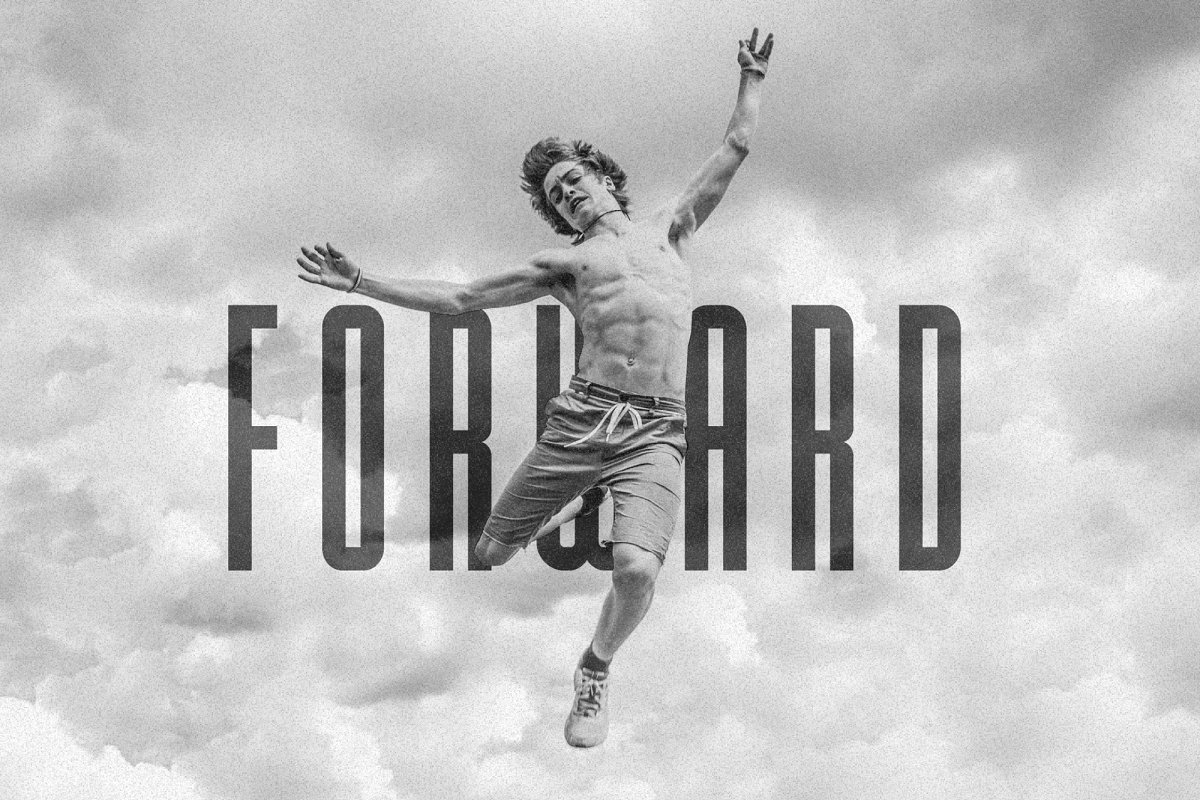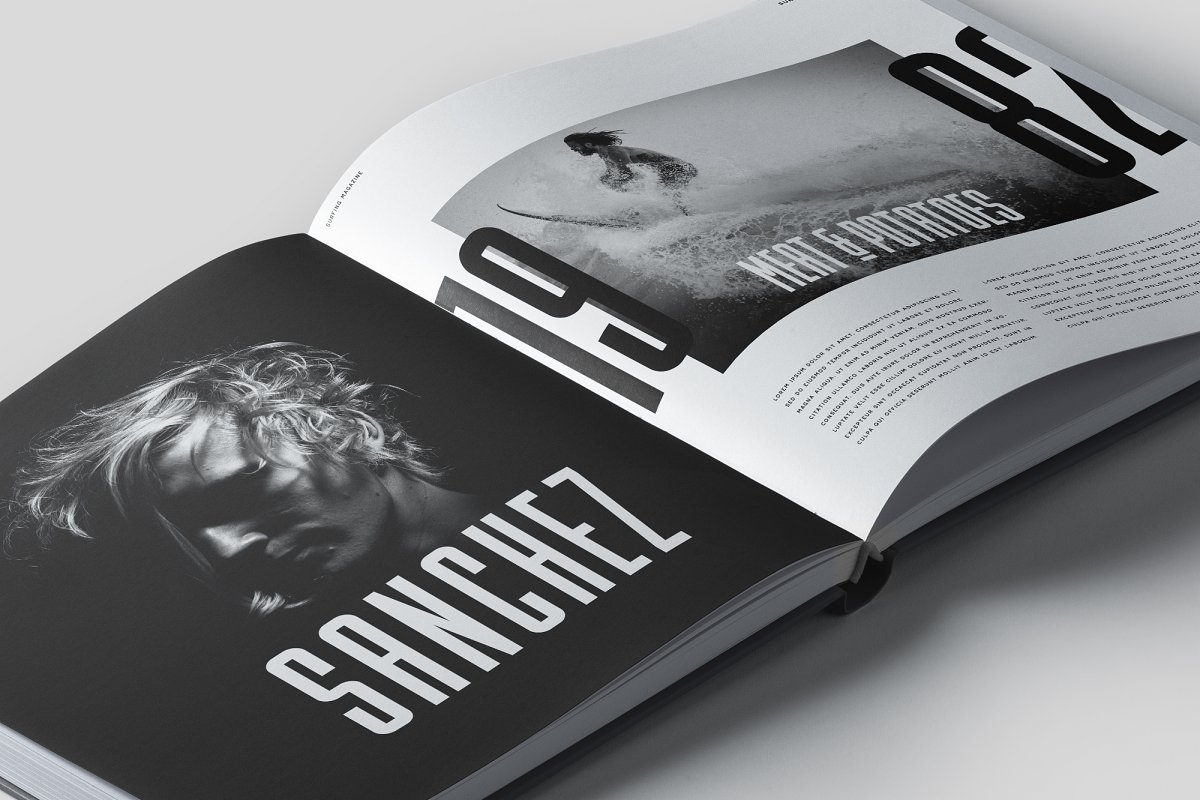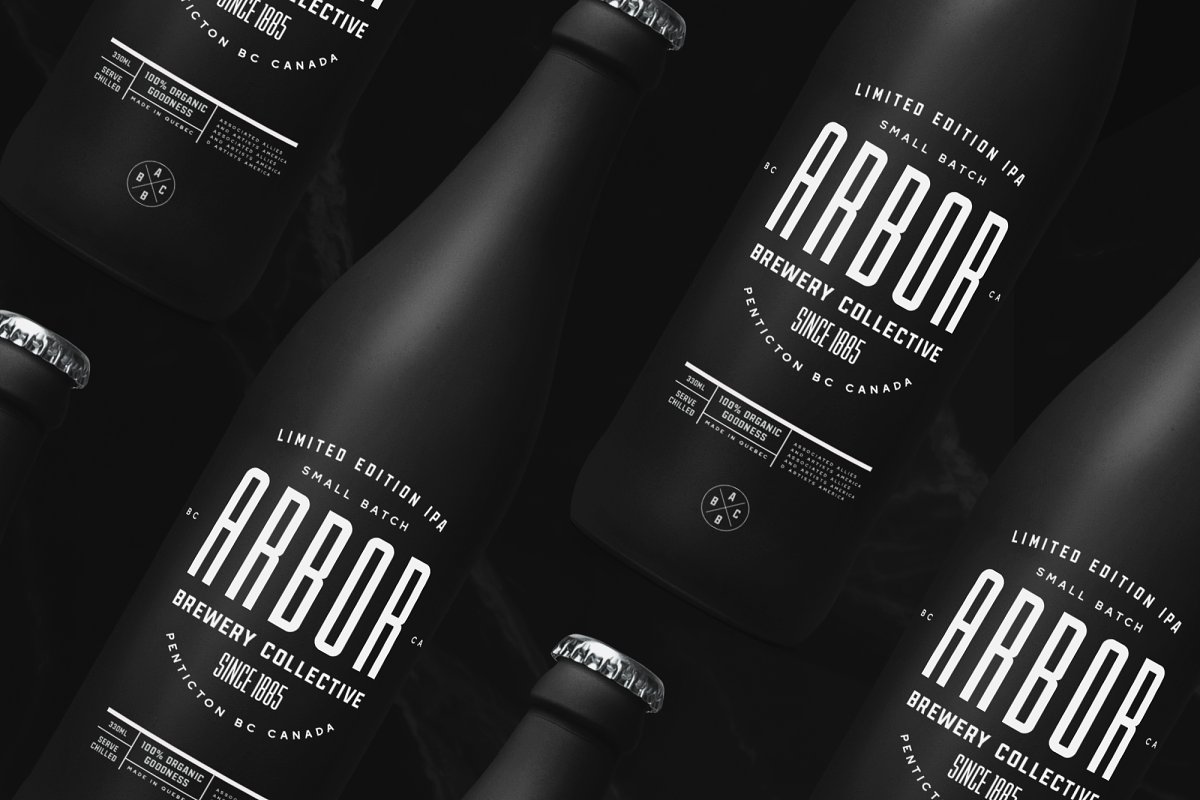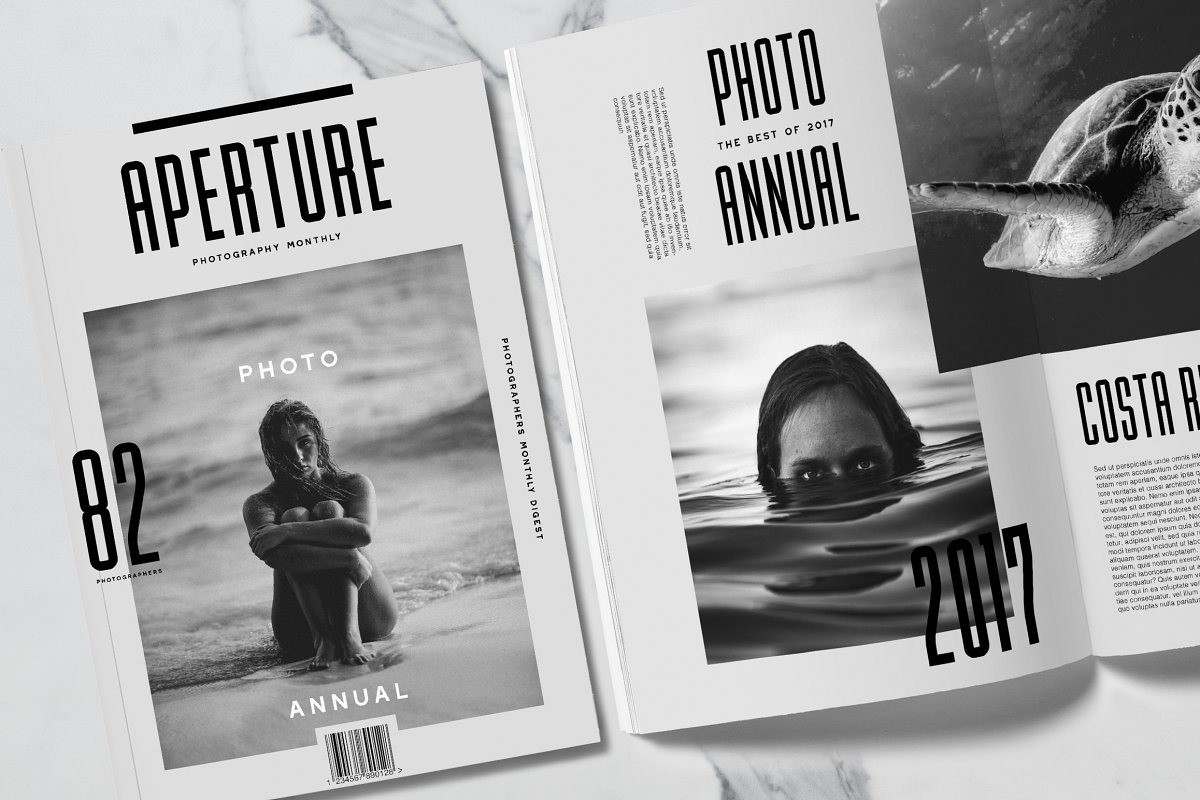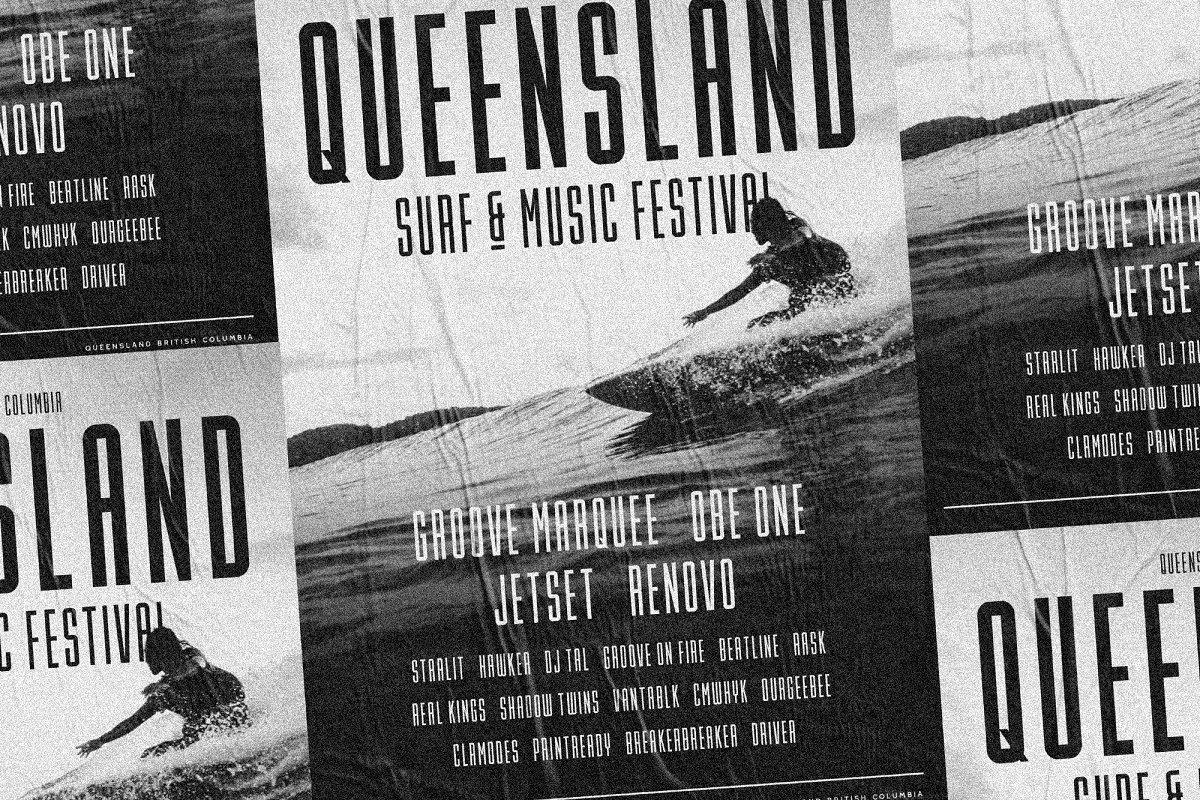
About the Lion Hare Bonus Font
Lion & Hare is an ultra compressed, tall font family that portrays strength and power, The characters maintain fairly square edges to give a more consistent geometric/industrial look to the font, The font family supports 27 languages and comes in 6 styles, Lion and Hare works fantastic for website headers, magazine layouts, logos, branding and much more